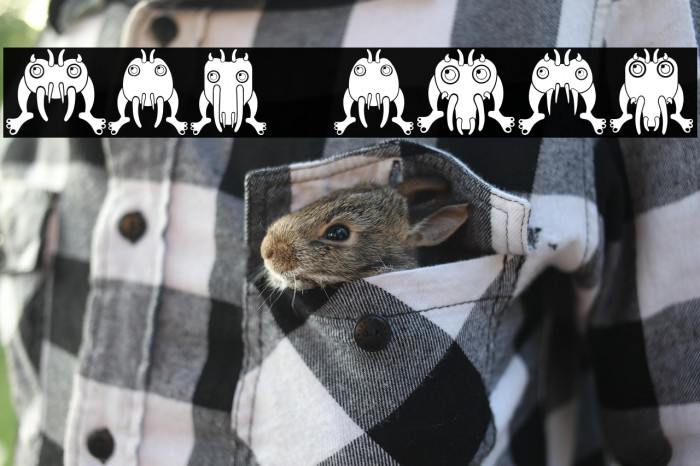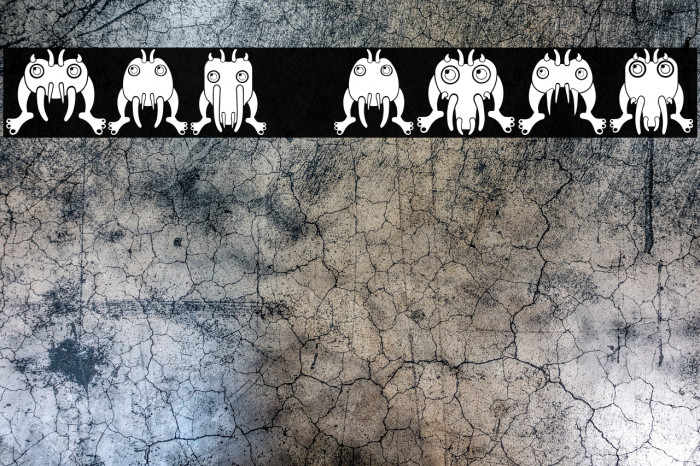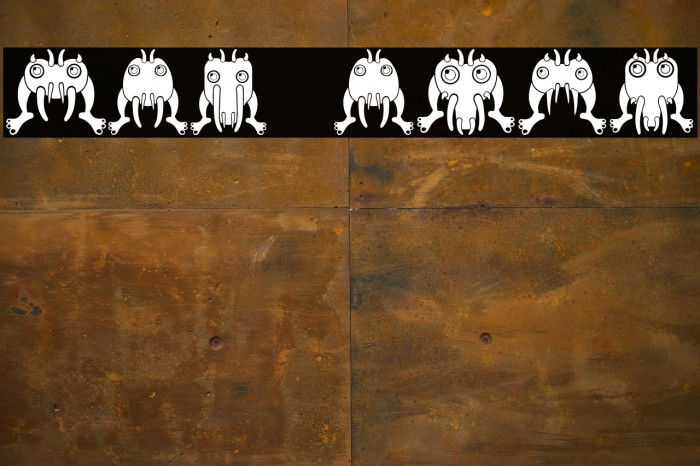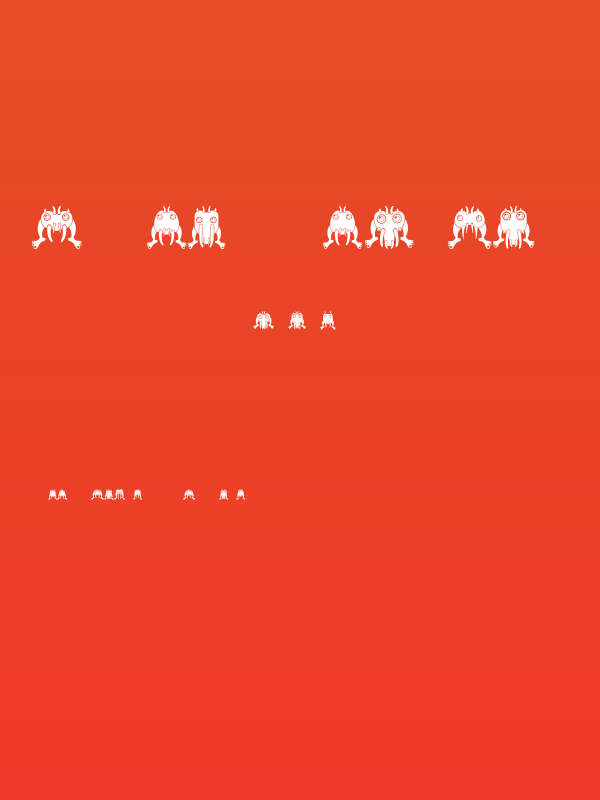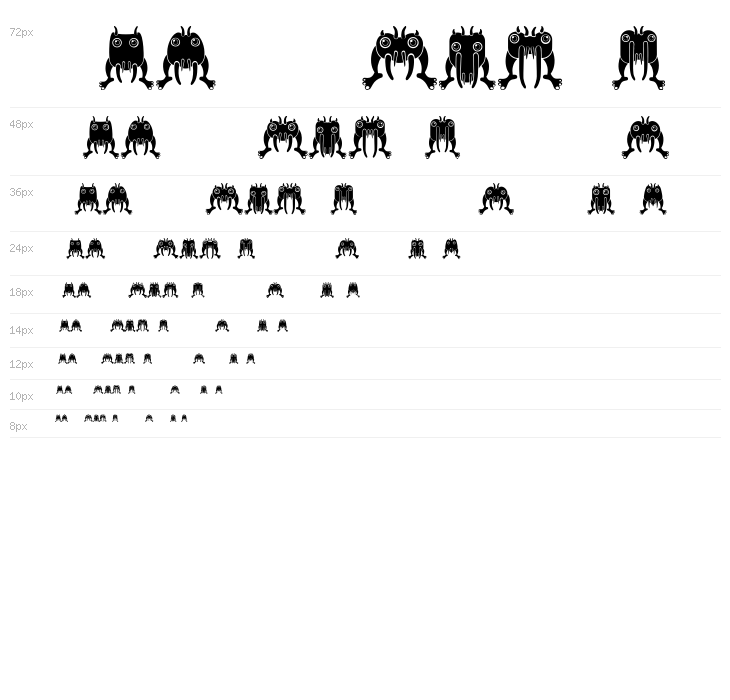
Insect Regular Font
Insect Regular Description
This font features a unique and playful design, where each character is represented by an intricate insect-like figure. The characters are highly decorative, with detailed patterns and whimsical shapes that resemble various bugs. This design choice makes the font stand out as a creative and artistic option, perfect for projects that require a touch of nature-inspired whimsy. The characters are consistent in style, maintaining a uniform look across the alphabet and special characters, which adds to the cohesive aesthetic of the font.
| Use Case | Logos, Posters, Creative projects |
| Proposed Projects | Ideal for children's books, nature-themed posters, creative invitations, and whimsical branding projects. |